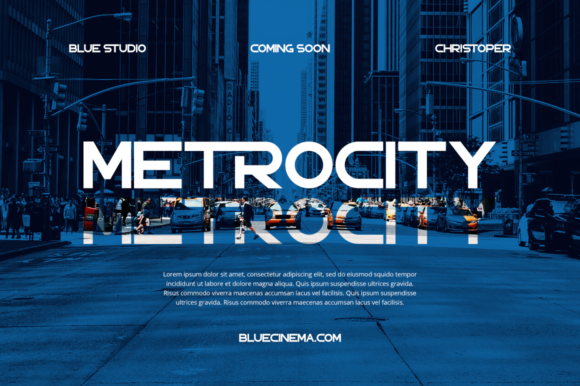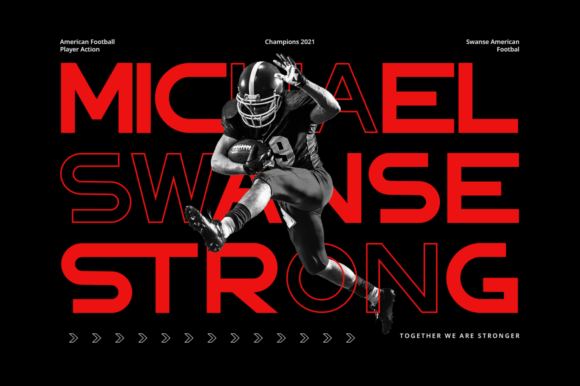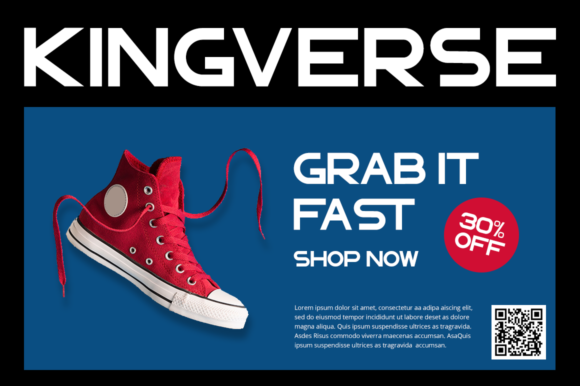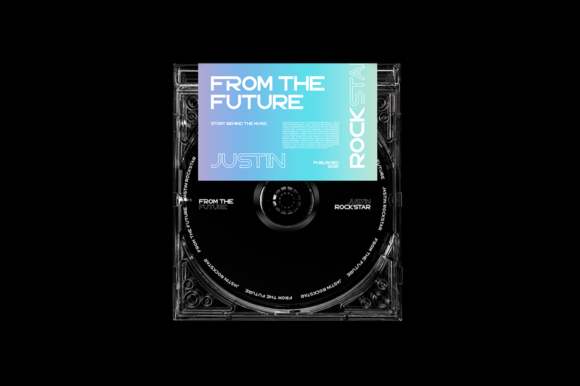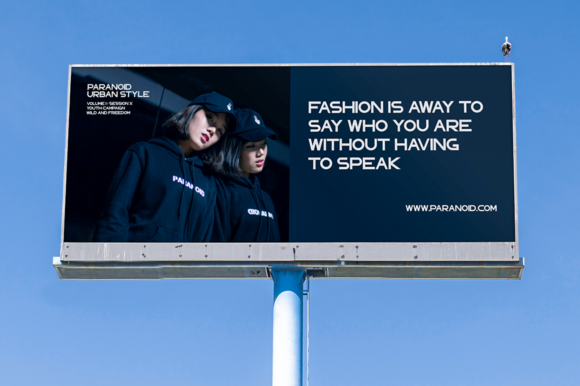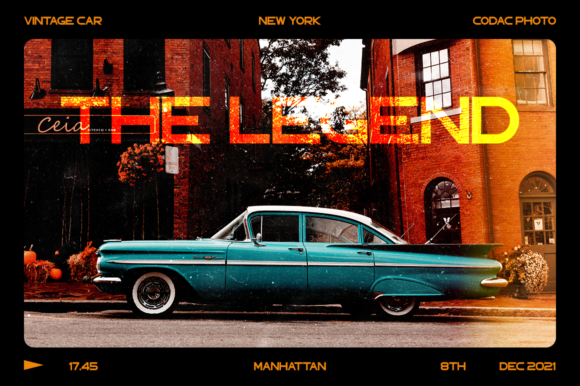
Bisetron Font: The Ultimate Display Font for Bold and Edgy Designs
In the world of typography, fonts play a crucial role in making or breaking a design. A font can elevate your creative project from ordinary to extraordinary, and that’s where Bisetron font comes in. Bisetron is a cool, bold, and robotic display font that can easily be matched to an incredibly large set of projects. In this article, we’ll dive into the features and benefits of Bisetron font and explore how it can make your designs stand out.
What is Bisetron Font?
Bisetron font is a modern, sans-serif display font designed to make a statement. Its bold and robotic style gives it a unique edge, making it perfect for designers and crafters looking to add a touch of industrial chic to their projects. The font’s sleek lines and geometric shapes create a futuristic look that’s both eye-catching and memorable.
Key Features of Bisetron Font
- Bold and Robotic Style: Bisetron font boasts a bold and robotic style that’s perfect for creating eye-catching headlines, titles, and captions.
- Versatile: Bisetron font can be used in a wide range of projects, from posters and flyers to logos, branding, and packaging.
- Easy to Read: Despite its bold style, Bisetron font is surprisingly easy to read, making it perfect for body text and captions.
- Unique Character Set: Bisetron font comes with a unique character set, including uppercase and lowercase letters, numbers, and special characters.
Benefits of Using Bisetron Font
So, why should you choose Bisetron font for your next project? Here are just a few benefits of using this amazing display font:
- Adds Edge to Your Designs: Bisetron font adds a touch of industrial chic to your designs, making them stand out from the crowd.
- Perfect for Headlines and Titles: Bisetron font is perfect for creating bold and eye-catching headlines and titles that grab attention.
- Easy to Pair with Other Fonts: Bisetron font can be easily paired with other fonts to create a unique and harmonious typography combination.
- Supports Multiple Languages: Bisetron font supports multiple languages, making it a great choice for global brands and designers.
How to Use Bisetron Font in Your Designs
Using Bisetron font in your designs is easy. Here are a few tips to get you started:
- Use it as a Headline Font: Bisetron font is perfect for creating bold and eye-catching headlines that grab attention.
- Pair it with Other Fonts: Bisetron font can be paired with other fonts to create a unique and harmonious typography combination.
- Experiment with Colors and Textures: Bisetron font looks great in a variety of colors and textures, so don’t be afraid to experiment and find the perfect combination for your design.
In conclusion, Bisetron font is a cool, bold, and robotic display font that’s perfect for designers and crafters looking to add a touch of industrial chic to their projects. Its versatility, unique character set, and ease of use make it a great choice for a wide range of designs, from posters and flyers to logos, branding, and packaging. So, add Bisetron font to your creative toolkit and watch your designs stand out!